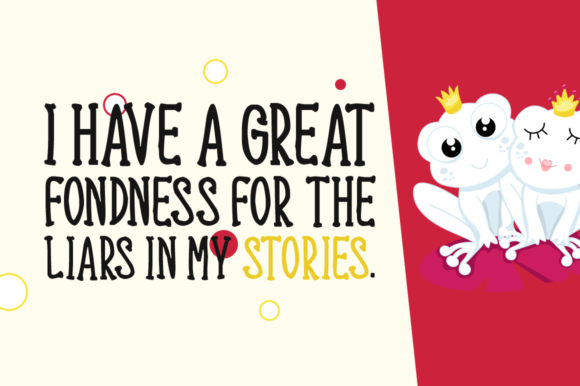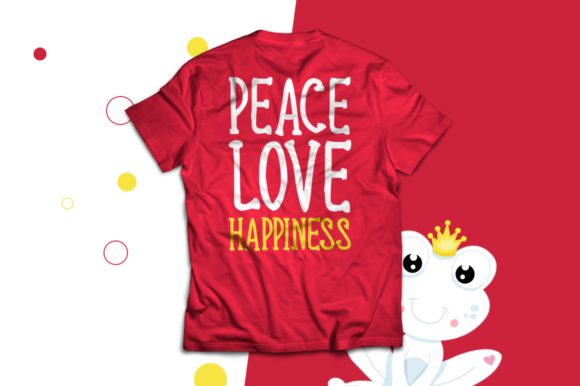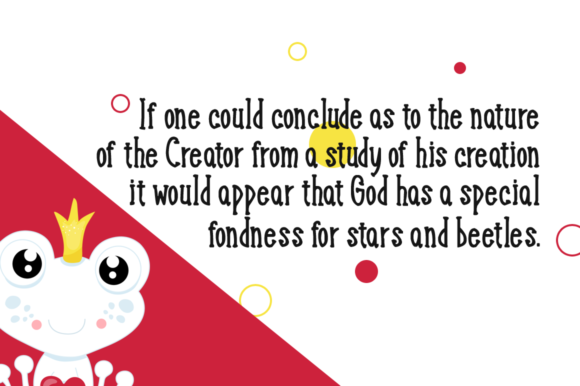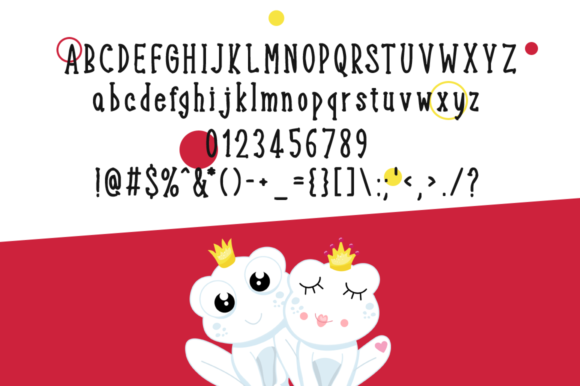
Fondness Font
About Fondness Font
Fondness is a brand new handwritten font with a whimsical, relaxed feel. Fondness is perfectly suited to stationery, logos, t-shirt, paper, print design, website header, photo frame, flyer, music cover, poster, image slider and much more.